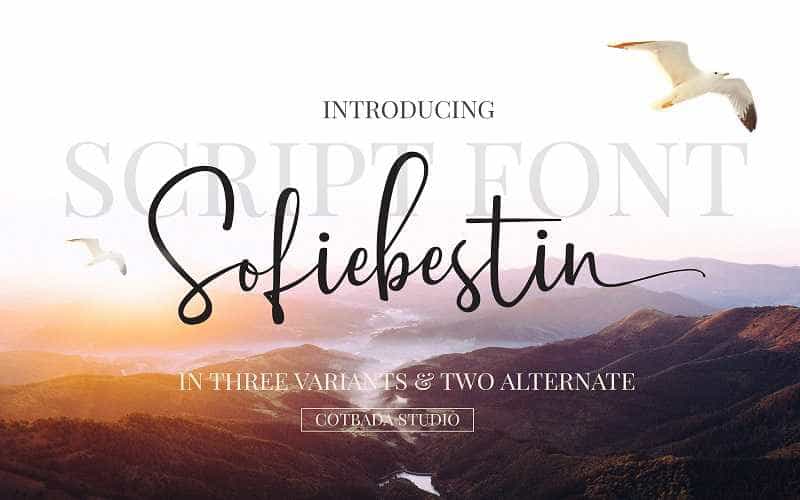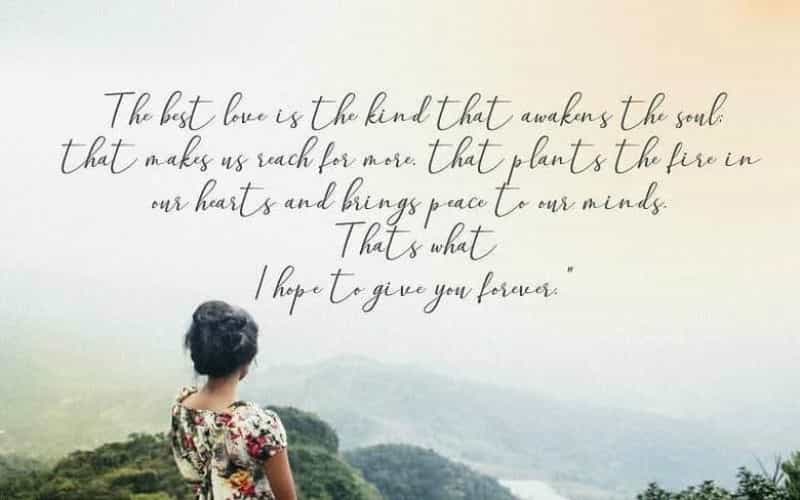
Discover Sofiebestin Script Font, part of the Calligraphy collection—a versatile and unique font perfect for adding a personal touch to your projects. Download it for free and enjoy crafting designs with style, from invitations to social media posts. This font is available exclusively for personal use, giving you the freedom to create without limits. Unlock your creativity with Sofiebestin Script Font today!
Sofiebestin Font is a new Typeface that is creative for your new design projects and has some modern and cool handwritten features to make any design project look so much more alive – labels, logos, signatures, blog headlines, packaging design.